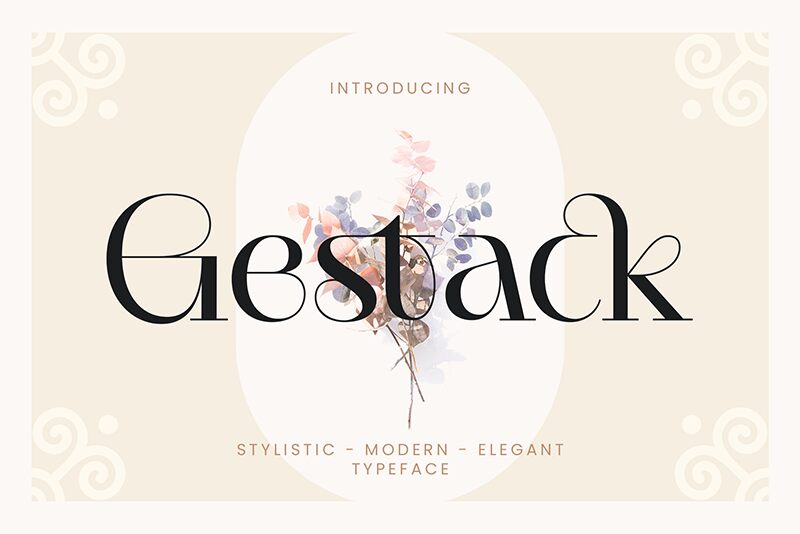
Gestack
Gestack font is designed by Almarkhatype. A serif font with elegant, high contrast, classic design style. A sophisticated typeface with sharp angles and thin strokes, all complimented by stylish curves. Gestack keeps it’s modern flair despite being a more traditional serif font making Gestack an adaptable contemporary essential.
Gestack is useful for projects from movie title projects through to classy branding work and corporate identities. It works well on product packaging across a variety of sectors from perfumes to tech gadgets, in a magazine headline or on digital products graphics - apps to websites plus much more.